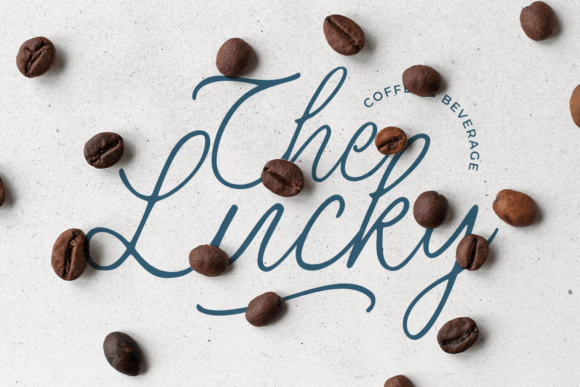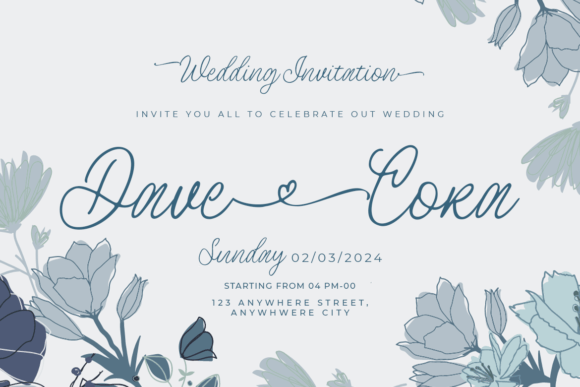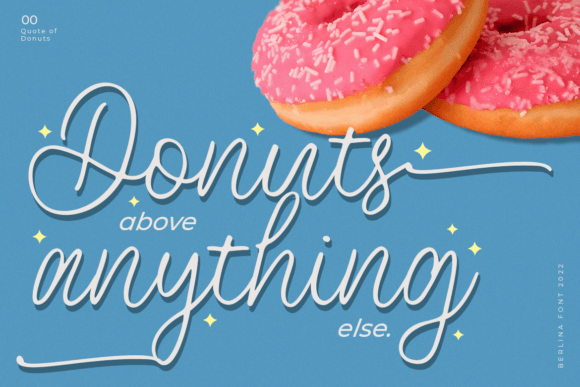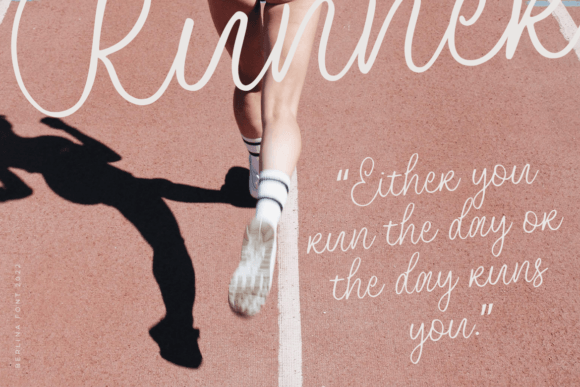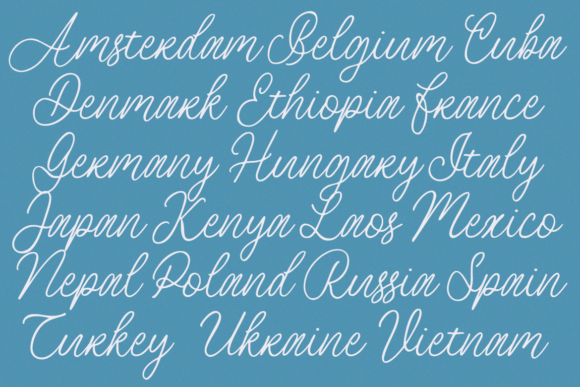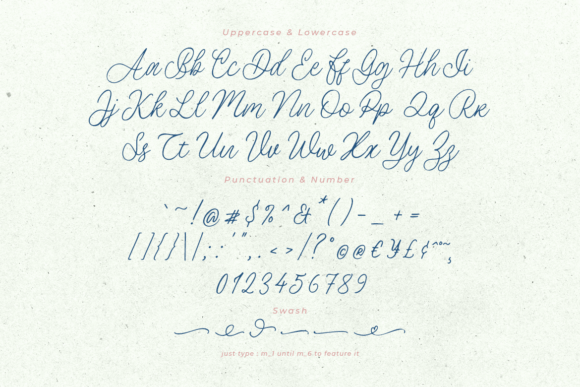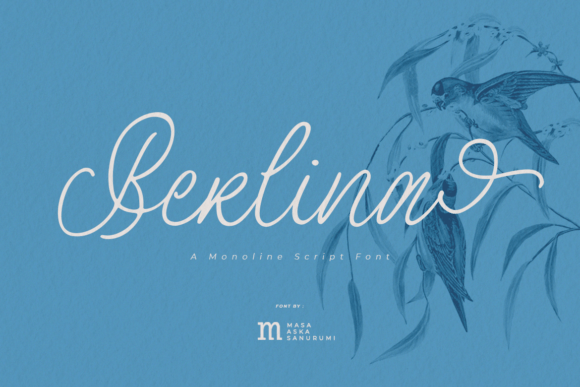
Introducing Berlina Font: Elevate Your Designs with Elegance and Simplicity
Are you a designer, crafter, or DIY enthusiast looking for a font that embodies both simplicity and style? Look no further than Berlina Font, an organic and gorgeous script font that is sure to transform your creative projects into stunning works of art. In this article, we’ll dive into the world of Berlina Font, exploring its features, benefits, and uses, as well as provide tips on how to make the most of this beautiful font.
What is Berlina Font?
Berlina Font is a modern script font that boasts a unique blend of elegance and simplicity. Its organic design makes it perfect for a wide range of creative projects, from Instagram graphics and social media posts to calligraphy scripts and DIY crafts. With Berlina Font, you can add a touch of sophistication and refinement to your designs, making them stand out from the crowd.
Key Features of Berlina Font
- Organic and elegant design: Berlina Font features a beautiful, hand-crafted design that exudes elegance and sophistication.
- Simple and stylish: The font’s simplicity makes it easy to read and use, while its stylish design adds a touch of refinement to any project.
- Versatile: Berlina Font is perfect for a wide range of creative projects, from digital designs to handmade crafts.
Uses for Berlina Font
Berlina Font is a versatile font that can be used for a wide range of creative projects, including:
- Instagram graphics: Add a touch of elegance to your Instagram posts and stories with Berlina Font.
- Calligraphy scripts: Use Berlina Font to create beautiful calligraphy scripts for DIY projects, such as wedding invitations, greeting cards, and more.
- DIY crafts: Berlina Font is perfect for a variety of DIY crafts, including handmade cards, gift tags, and other paper crafts.
- Digital designs: Use Berlina Font to add a touch of sophistication to your digital designs, including brochures, flyers, and more.
Tips for Using Berlina Font
To get the most out of Berlina Font, here are a few tips to keep in mind:
- Experiment with different sizes and colors: Berlina Font looks great in a variety of sizes and colors, so don’t be afraid to experiment and find the perfect combination for your project.
- Pair with other fonts: Berlina Font pairs well with a variety of other fonts, so try combining it with other fonts to create a unique and interesting design.
- Use for headlines and titles: Berlina Font is perfect for headlines and titles, where its elegant design can really shine.
- Use for body text: Berlina Font is also suitable for body text, where its simplicity and readability make it easy to read.
| Font Name | Berlina Font |
| Author | Masa Aska Sanurumi |
In conclusion, Berlina Font is a beautiful and versatile script font that is perfect for designers, crafters, and DIY enthusiasts. Its organic design, simplicity, and elegance make it a great choice for a wide range of creative projects, from Instagram graphics and calligraphy scripts to DIY crafts and digital designs. With its ease of use and flexibility, Berlina Font is sure to become a favorite in your font collection.
Get Creative with Berlina Font